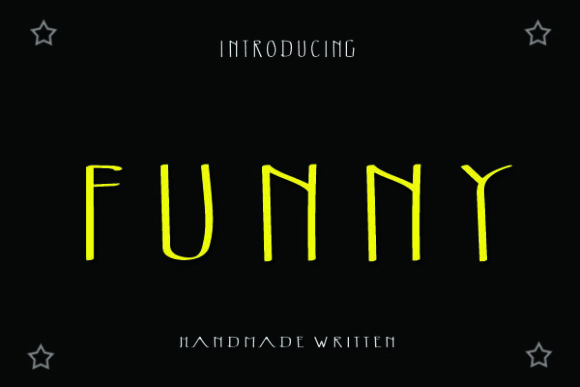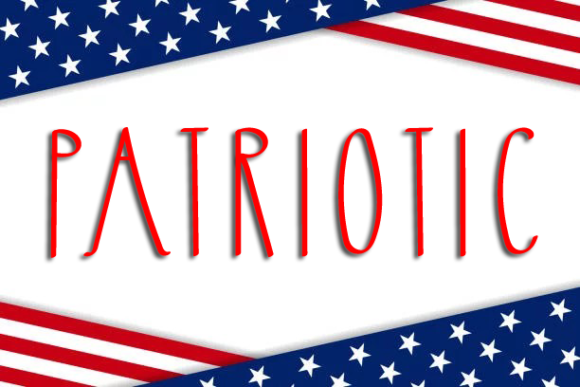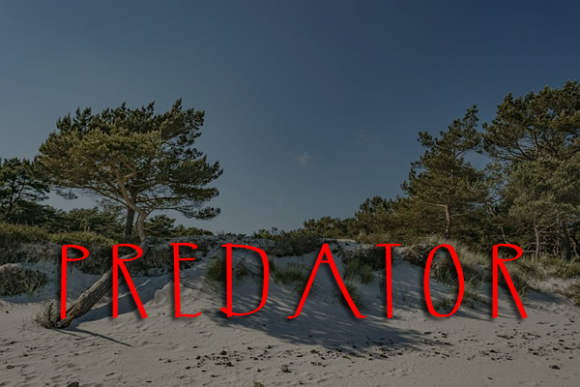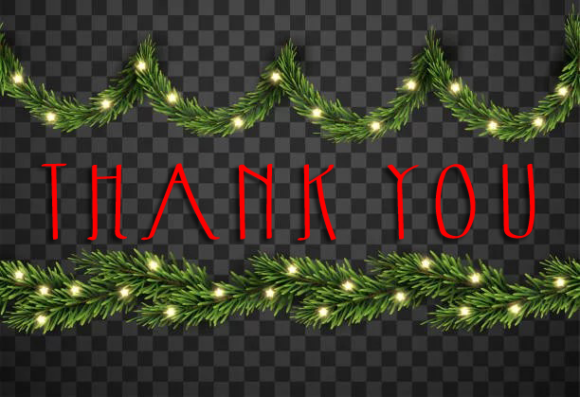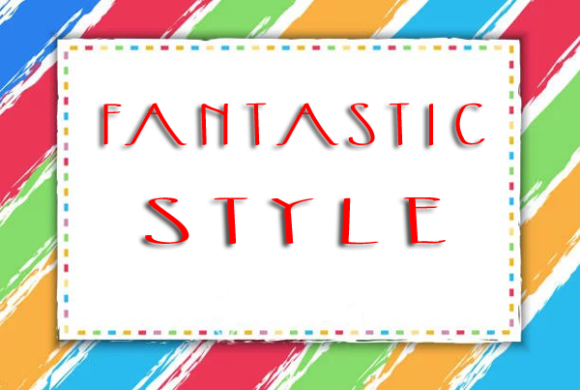
Funny Font
About Funny Font
Funny is a thin lettered, clean and simple lettered handwritten font that can be used for all chalkboard quotes or teaching material! Its authentic look will add a personal and realistic feel to your designs.